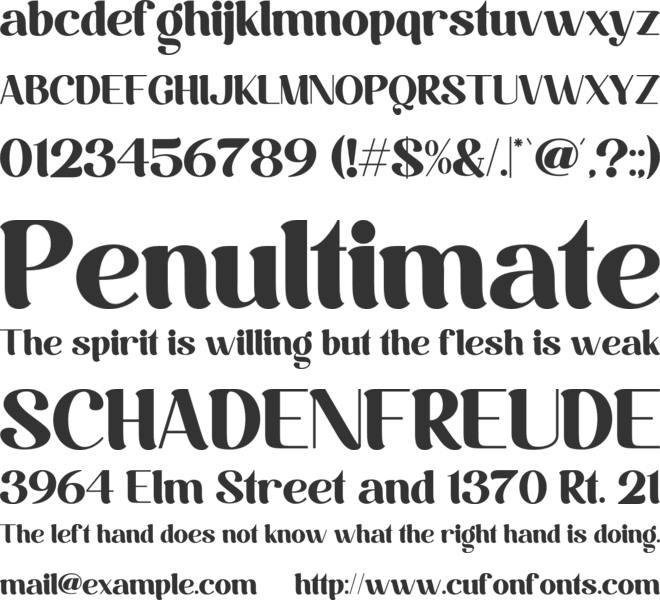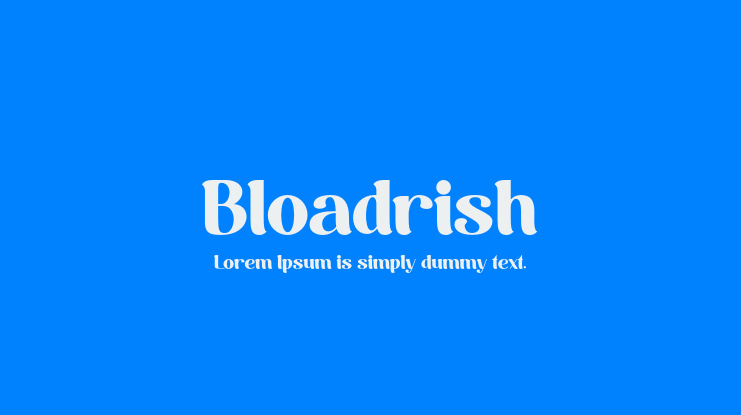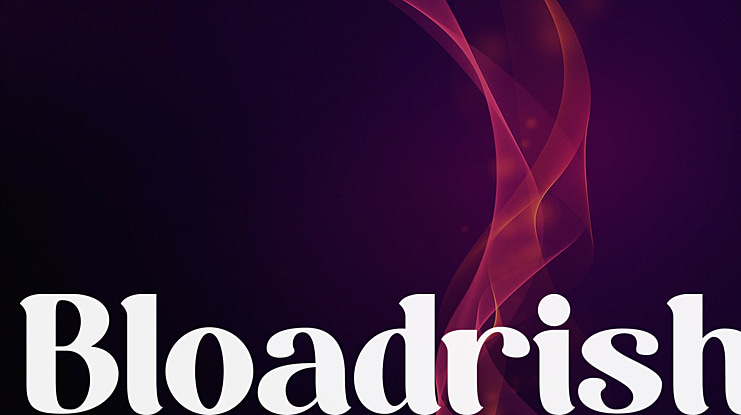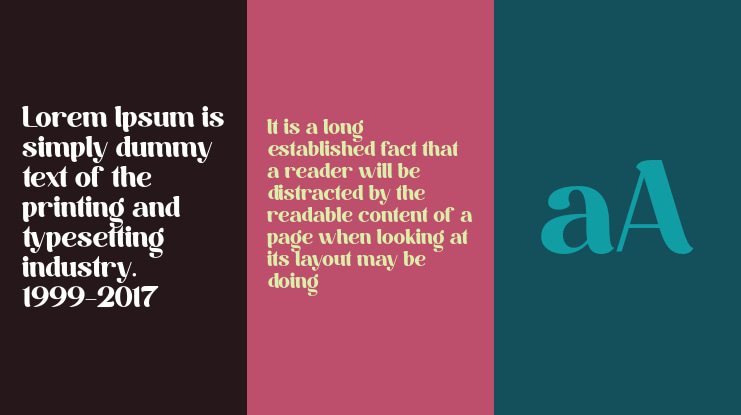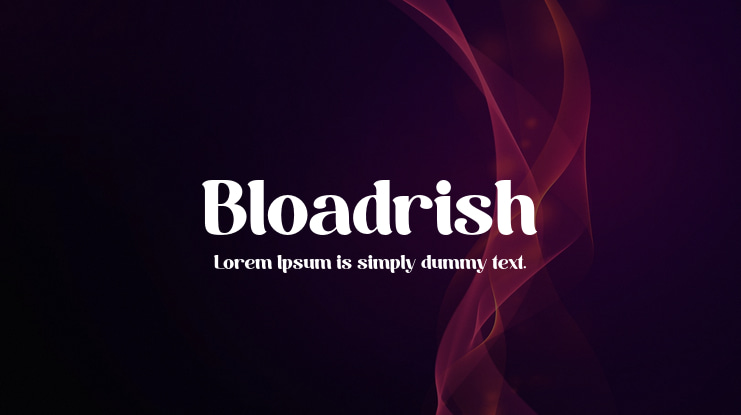
Bloadrish Font
Dida Ahluddin
Bloadrish is a bold and elegant serif font. Whether you are using it for cartoon-related designs, children’s games, quotes, titles, brand names, book covers, posters, or just any creation that requires a touch of beauty, this font is a great choice.